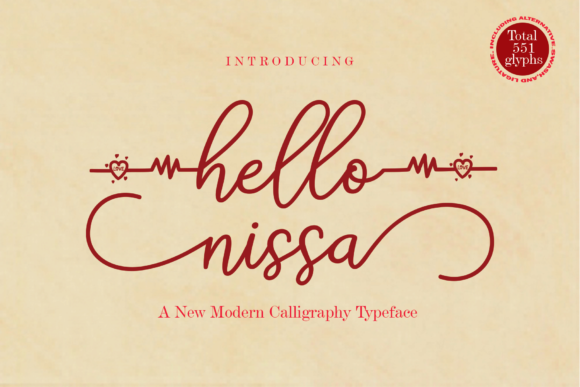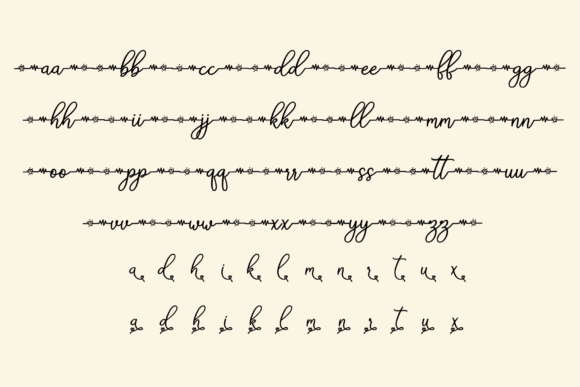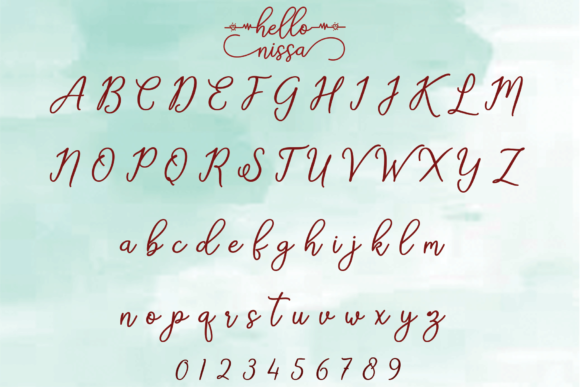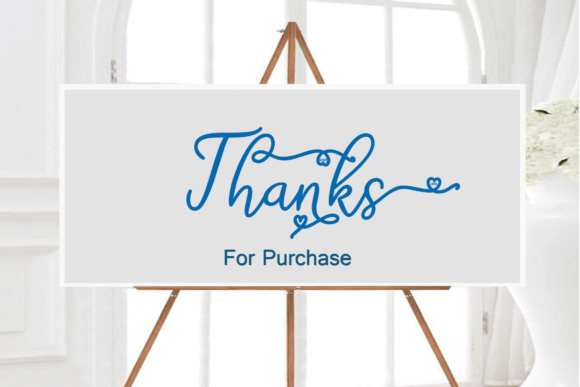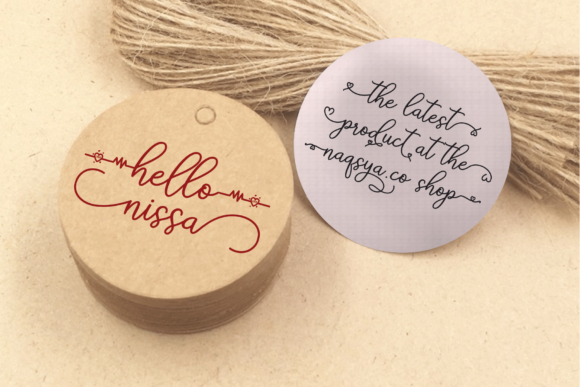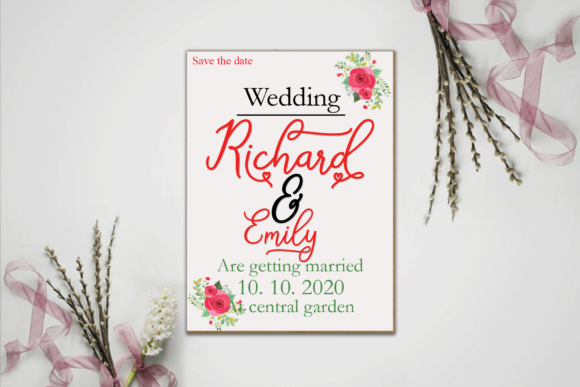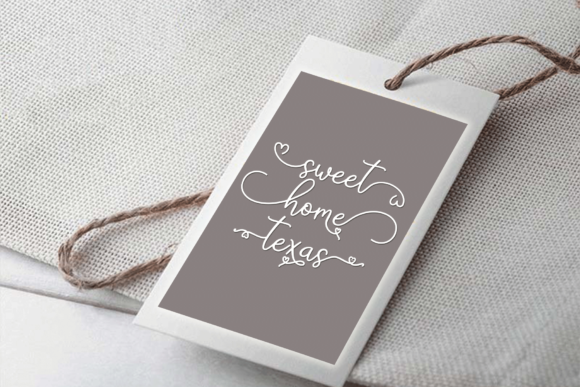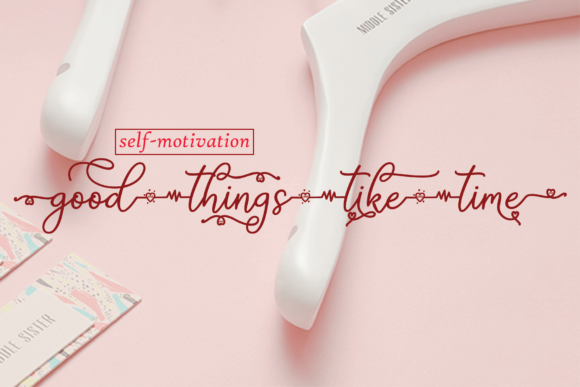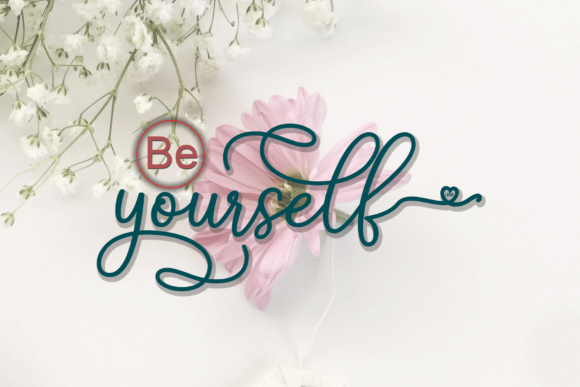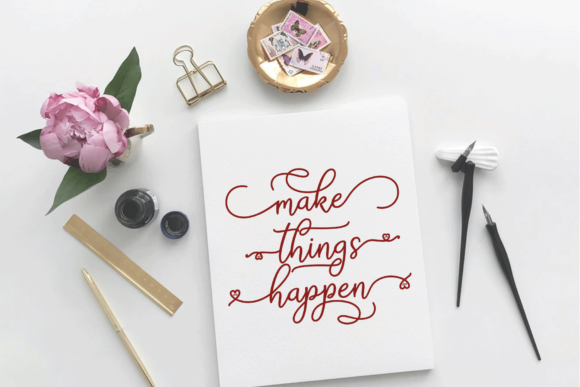
Hello Nissa Font
About Hello Nissa Font
Hello Nissa simplifies elegance into one truly outstanding handwritten font. Use this gorgeous and unique font to bring any DIY project to life!